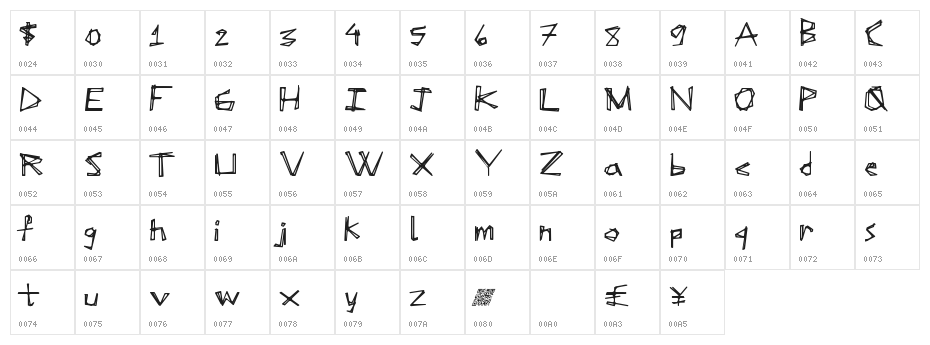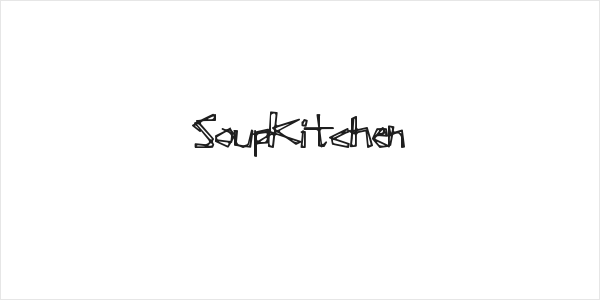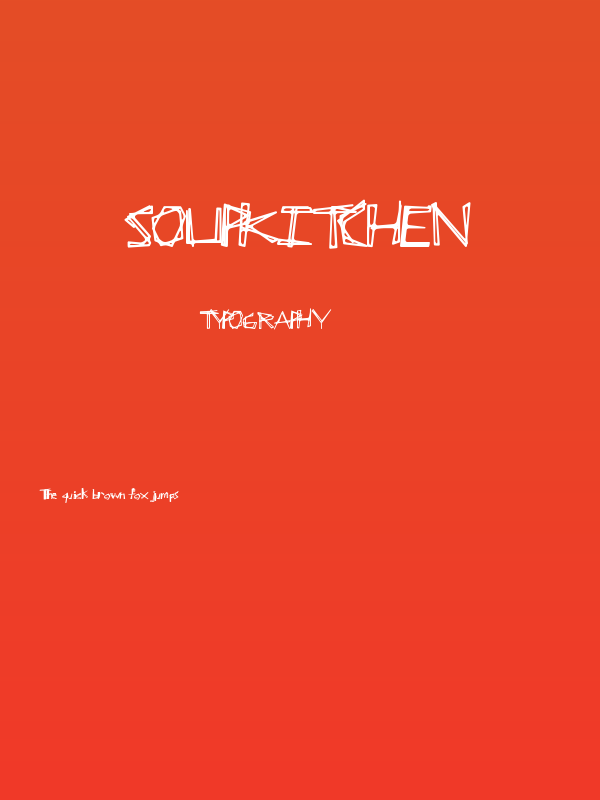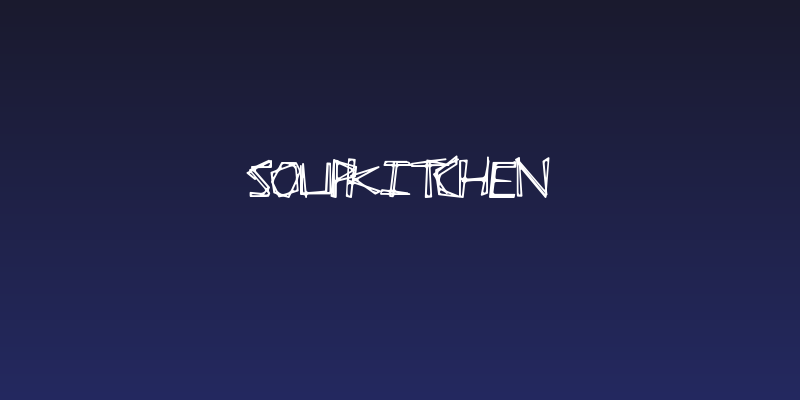
SoupKitchen Font
SoupKitchen Description
This font exhibits a highly distinctive and edgy style, characterized by its irregular, hand-drawn appearance. The letters are formed with angular, intersecting lines that give a sense of movement and energy. The uppercase and lowercase letters maintain a consistent aesthetic, with a playful yet chaotic structure. Numbers and special characters follow the same design principles, ensuring a cohesive look across all glyphs. The font's unique style makes it stand out, ideal for projects that require a bold, artistic touch.
| Overall Style | Modern, Artistic |
| Proposed Projects | Ideal for album covers, street art-inspired designs, posters, and creative branding projects. |